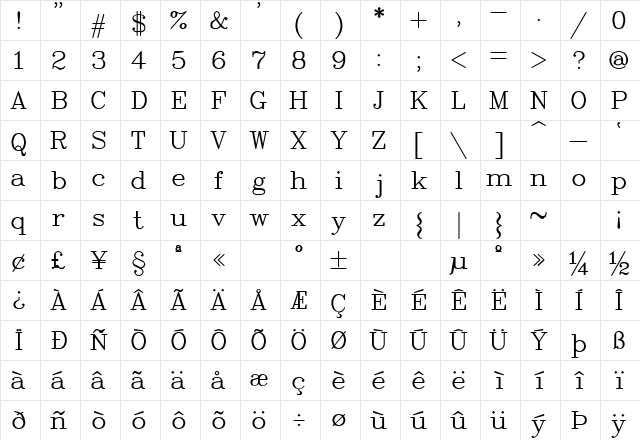
SWComp Regular
Design Context for SWComp Typeface
SWComp is a composed and adaptable typeface that performs quietly and consistently across a wide range of design contexts.